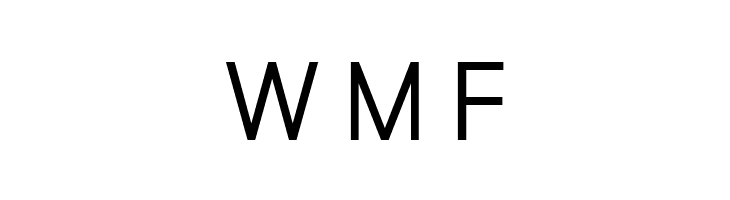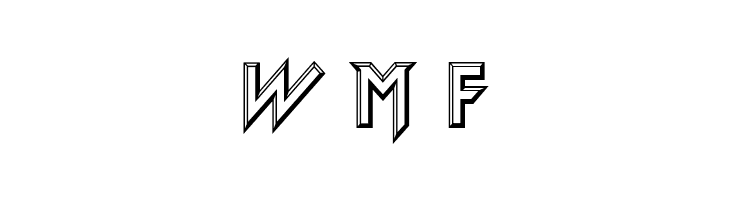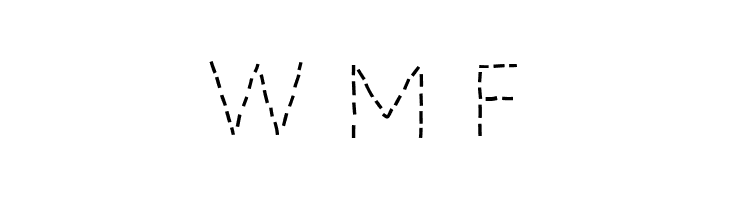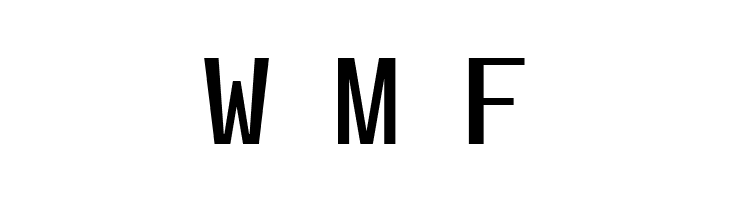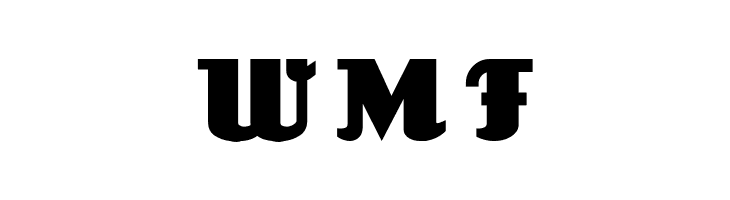
A bold, playful font with dynamic, whimsical characters.
A modern, geometric font with clean lines and a technical appearance.
A bold, geometric font with a 3D effect and futuristic style.
A playful, decorative font with unique embellishments resembling eyelashes.
A playful, dashed-line font with a stencil-like appearance.
A futuristic, geometric monospaced typeface with a clean and modern aesthetic.
A bold, italic sans-serif font with a modern and dynamic style.
A bold, modern font with geometric shapes and consistent stroke width.
A bold, playful font with vintage charm, perfect for striking headlines.
A bold, 3D font with a strong, impactful presence and shadow effect.